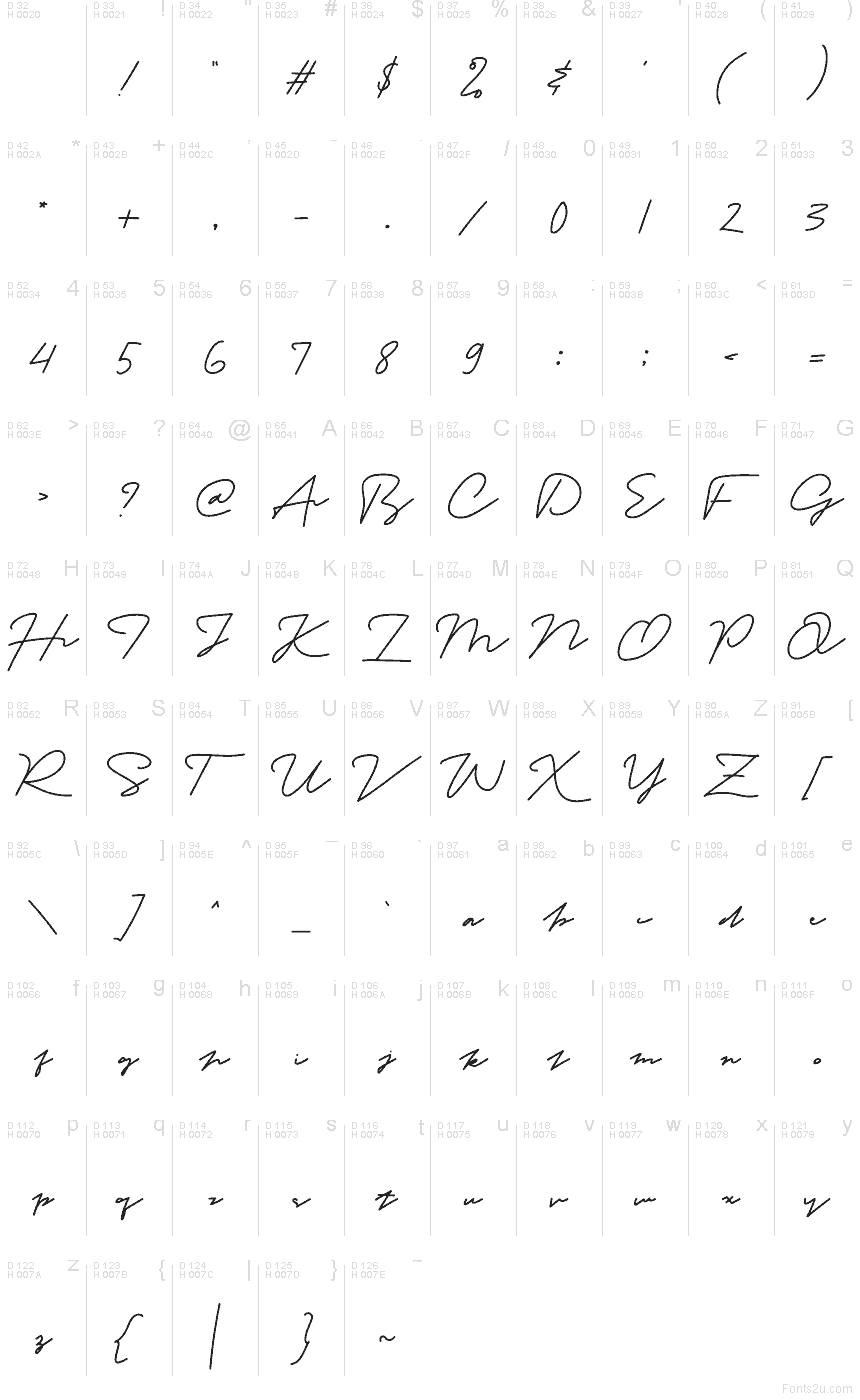
Ankara by Graphicfresh is a free signature-style handwritten font with a quick, personal rhythm. The letters sweep forward in long, lean strokes, pairing a tall opening A with loose joins and sharp little turns that keep the writing feeling casual rather than polished.
It fits naturally in branding, boutique packaging, social media headers, book covers, poster titles, and short quote graphics where a free font with this signed feel can carry the whole mood. Use it when you want a nameplate, cover line, or title card to feel handwritten and immediate, because the extended strokes give even a short word a clear sense of movement.